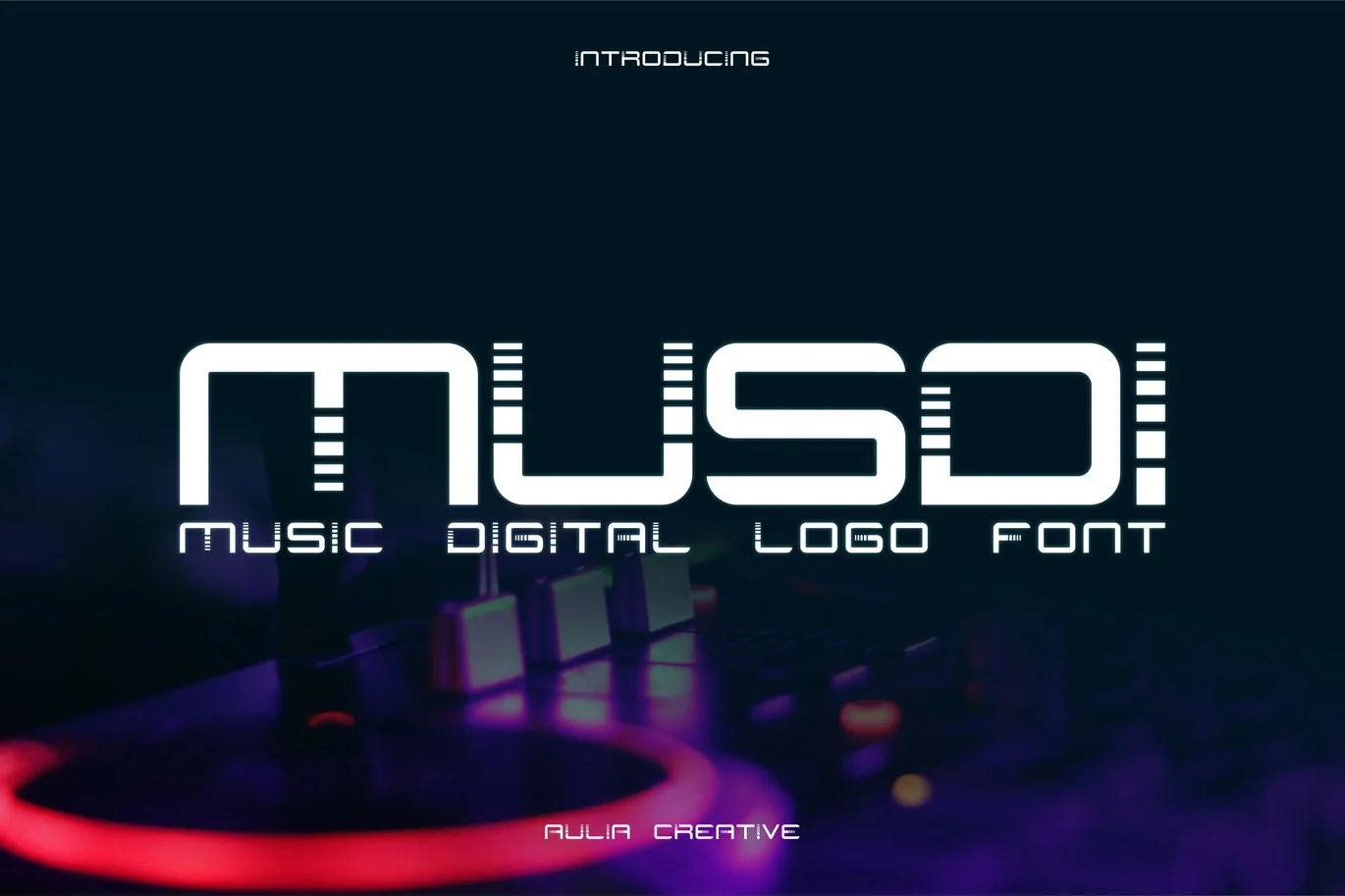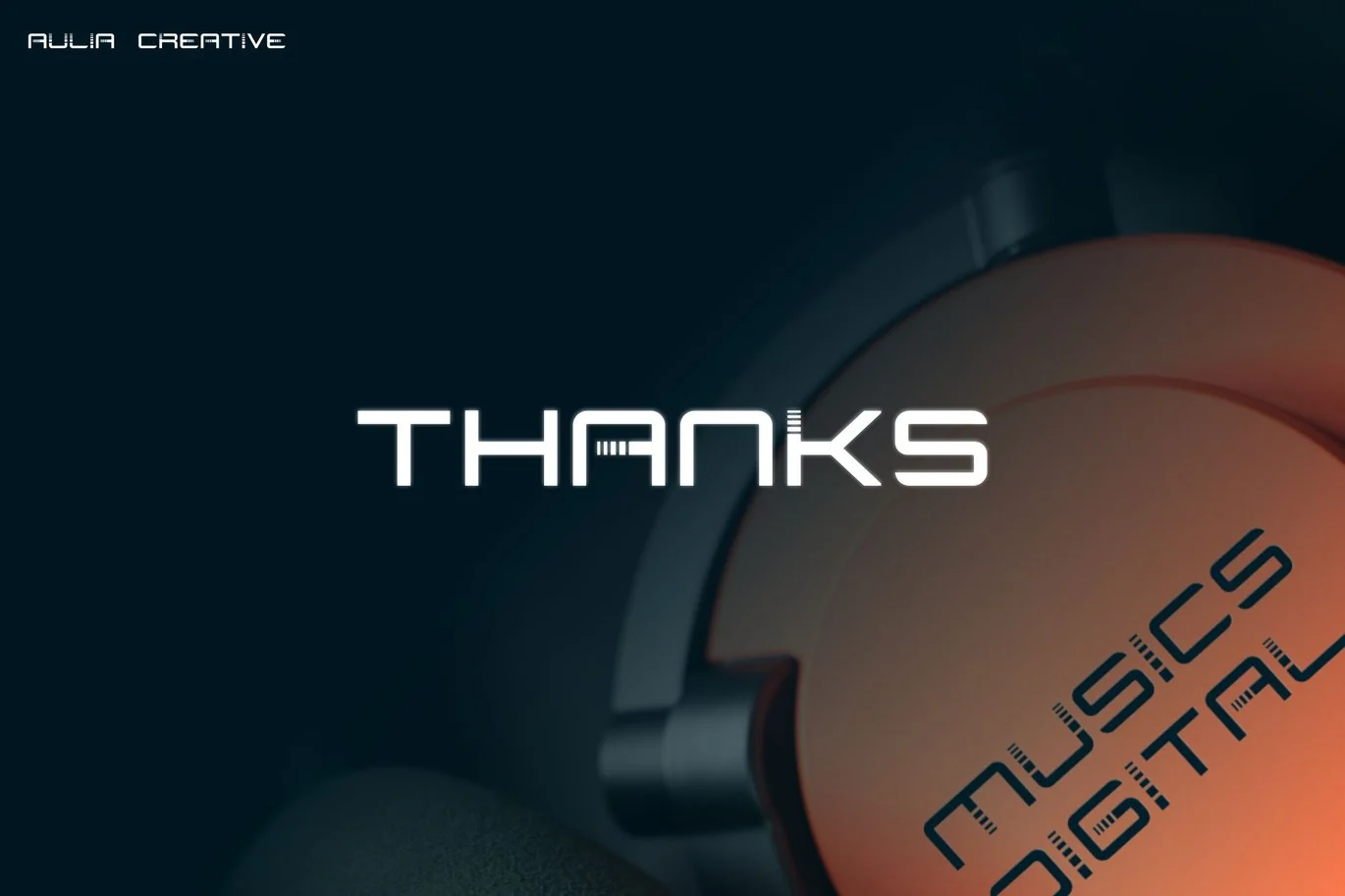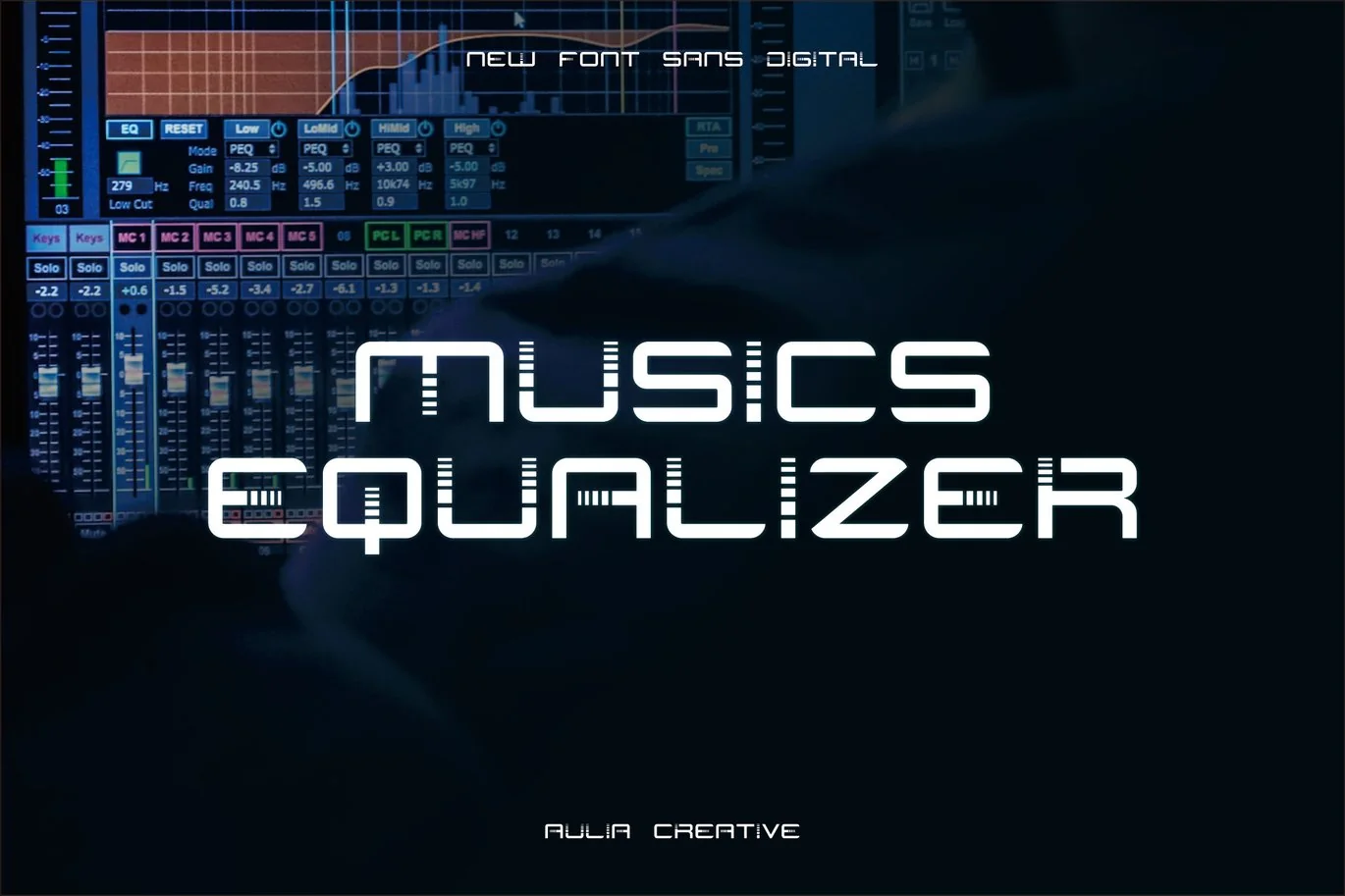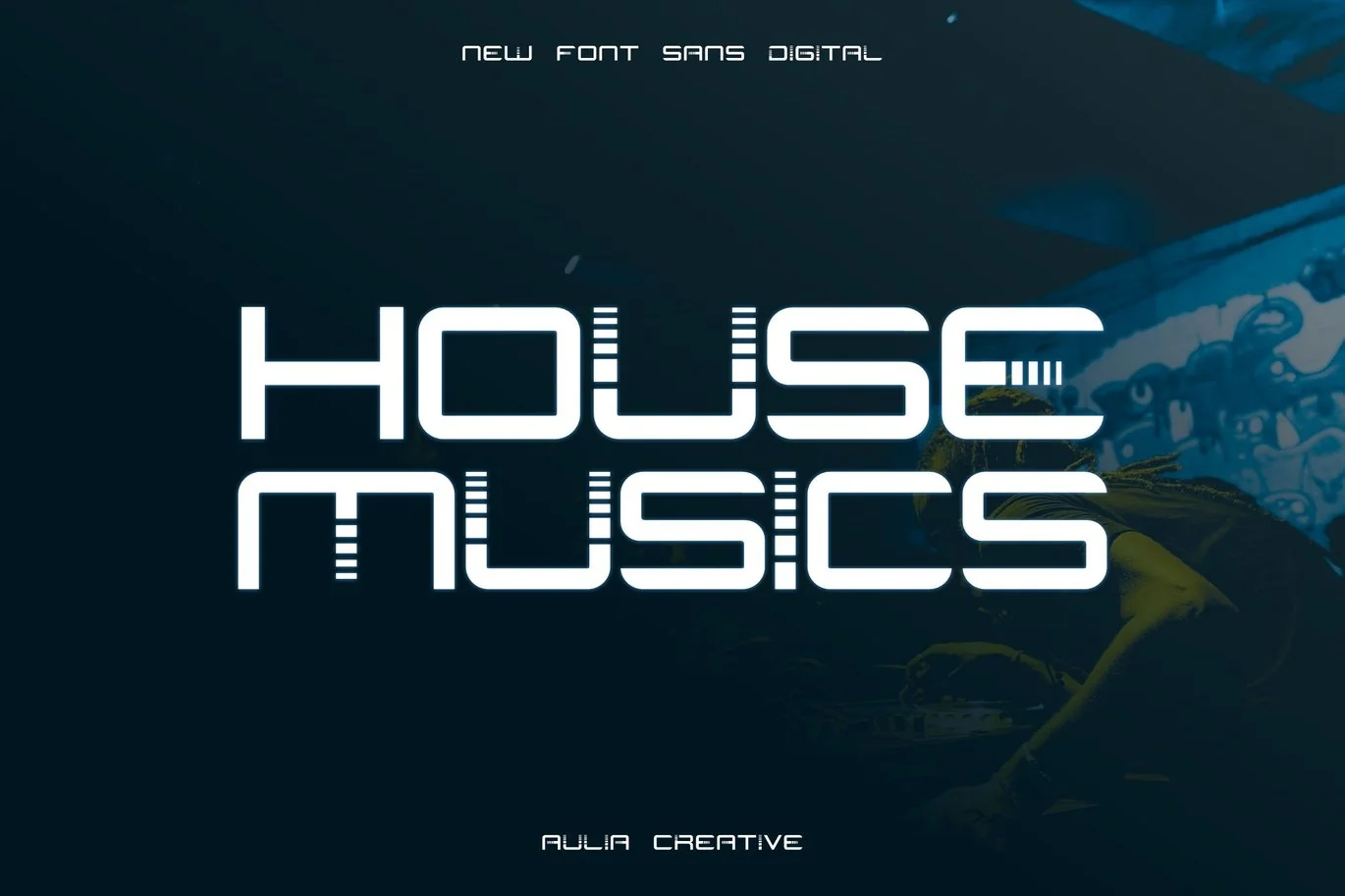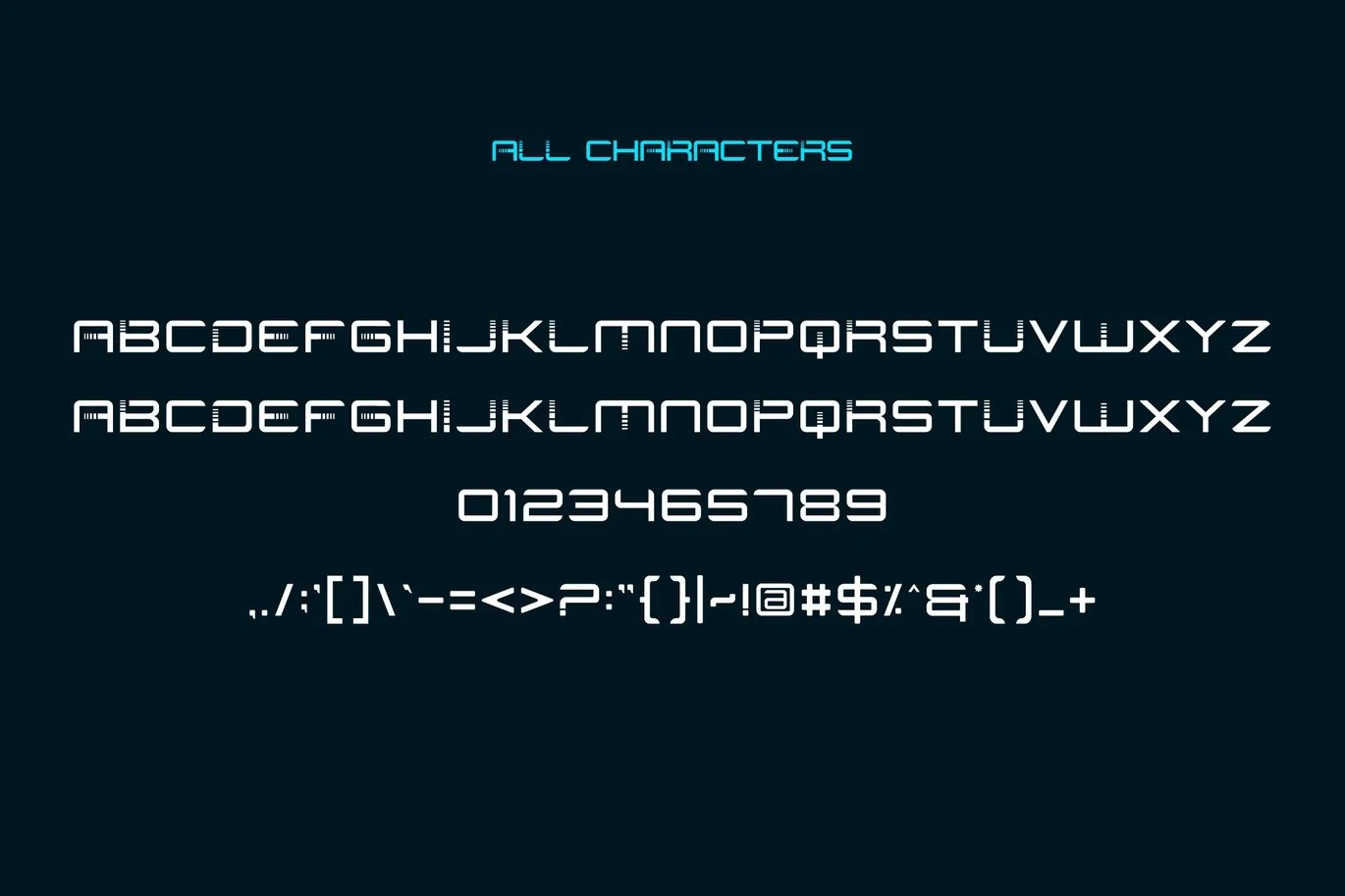
Musdi – Music Digital Typeface Logo Font Modern
Introducing our new product Musdi – Music Digital Typeface Logo Font Modern
Musdi – Music Digital Typeface Logo Font Modern & Digital Font Logo and authentic display font.